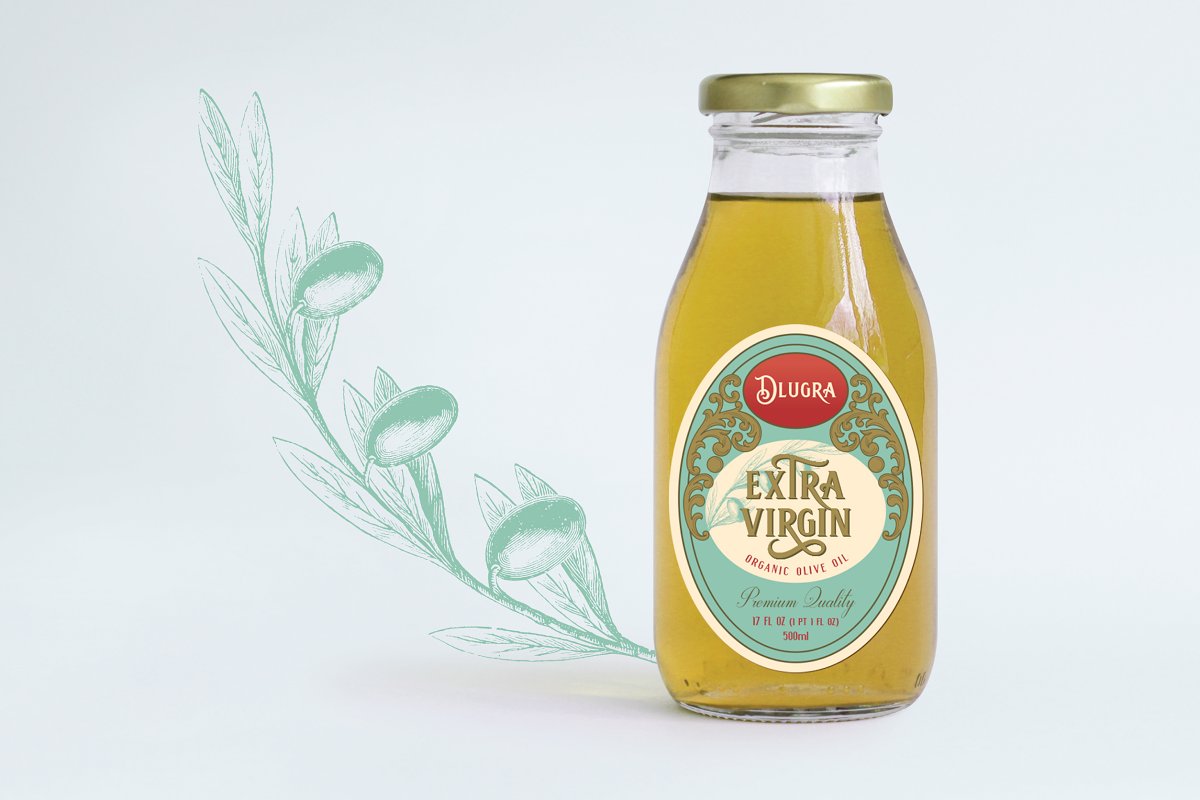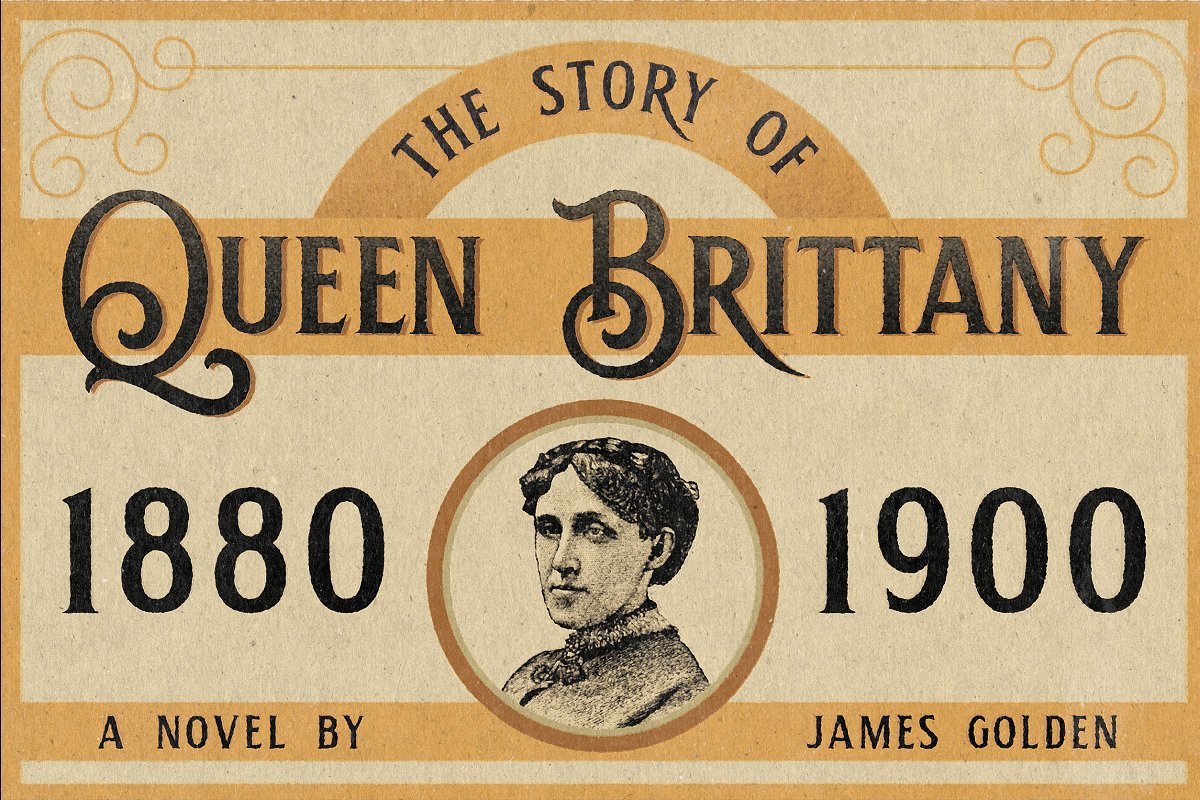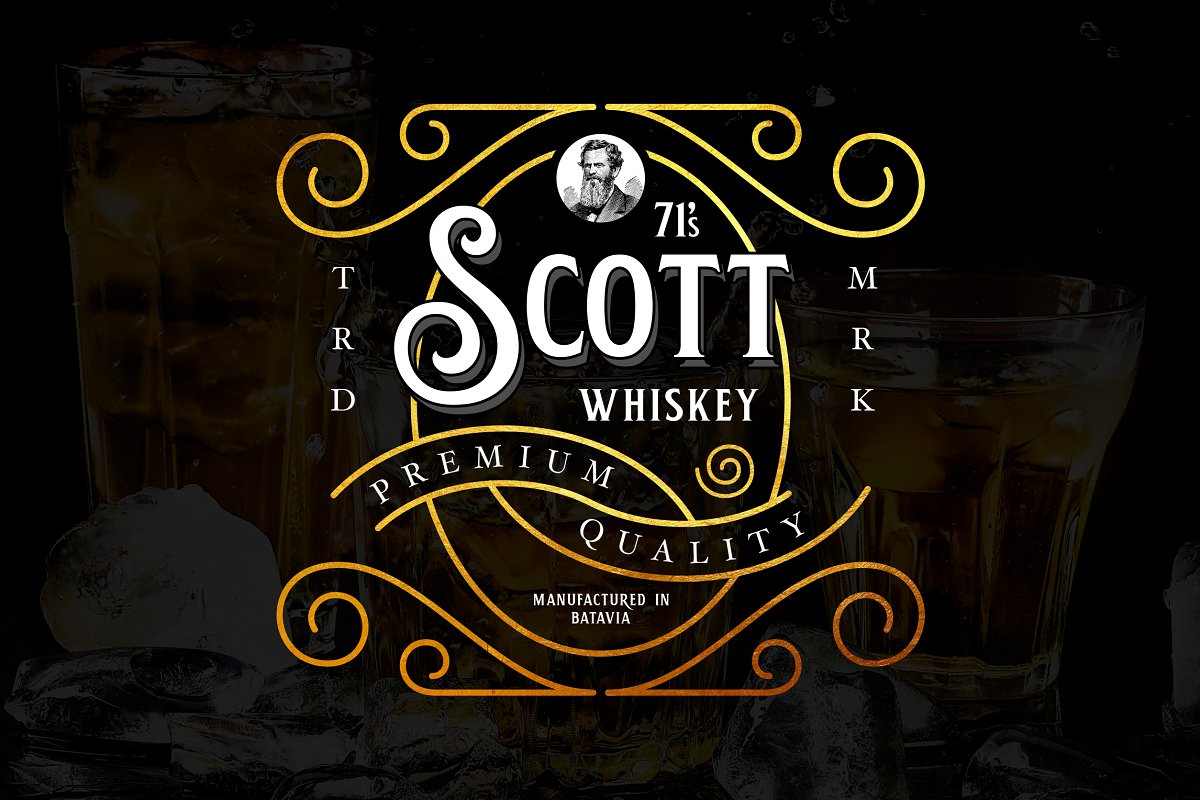
About the Hemera II Vintage Decorative Font
Perfectly fit for your vintage vibes and classic touch on any branding works, Logo, badges, label, headline, retro decoration, you name it, Included Uppercase, Lowercase, Numbers & Punctuations, Multilanguage Support, and some alternative letters of Lowercase